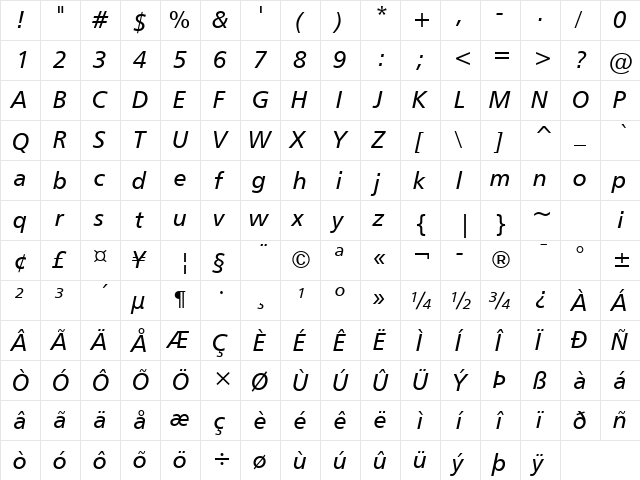
Humnst777 BT Italic Font Preview
Humnst777 BT Italic
Humnst777 BT Italic Font Details
Design Context for Humnst777 BT Typeface
Humnst777 BT is a composed and adaptable typeface that performs quietly and consistently across a wide range of design contexts. The dynamic lean of this cut emphasises speed and emphasis in any layout.
Pro Tip: Try Humnst777 BT for annotation and caption copy alongside an upright companion — the contrast in angle creates a dynamic but ordered typographic system.